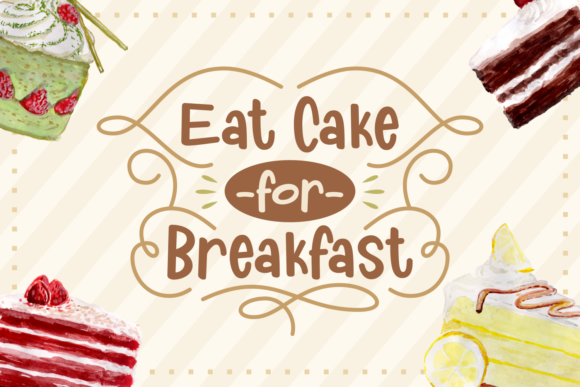
Introduction to Royum Bread Font
Remember the thrill of brainstorming ideas for your next creative project? The excitement of bringing your vision to life is always exhilarating, but sometimes, it’s the little details that make all the difference. For designers, finding the perfect font can be the key to unlocking that special something that elevates your design from good to great.
Enter the Royum Bread Font, a sweet script font that has been making waves in the design community. With its great readability and clean letters, this font is perfect for large designs that need to make a statement. Whether you’re working on a logo, a poster, or a social media graphic, the Royum Bread Font is sure to add a playful feel to your design.
Key Features of Royum Bread Font
- High-quality design resource for creative projects, ideal for illustrations, graphics, and digital art.
- Unique, hand-drawn style with intricate details, perfect for adding a personal touch to designs.
Honest Review: Royum Bread Font
As a designer, I’m always on the lookout for unique and high-quality design resources to elevate my creative projects. Recently, I stumbled upon the Royum Bread Font, and I was excited to give it a try.
Here’s what I love about this font: ✨ It’s incredibly versatile and can be used for a wide range of designs, from invitations to social media graphics. ✨ The font is highly customizable, allowing me to easily adjust the size, color, and style to fit my project’s needs. ✨ The transparent background option is a game-changer for designers who want to add a touch of sophistication to their designs.
- High-quality design resource: The font is well-designed and looks great in print and digital formats.
- Design flexibility: The font can be used for a variety of creative projects, from logos to infographics.
While the Royum Bread Font is a great resource, there are a few limitations to consider: ⚠️ The font may not be suitable for very formal or professional designs, as it has a more playful and casual feel. ⚠️ The font may not be compatible with all operating systems or software.
Overall, I’m impressed with the Royum Bread Font and would recommend it to designers looking for a high-quality, free design resource. Just be aware of the potential limitations and use it accordingly.
Royum Bread Font
Tips for Getting the Most Out of Royum Bread Font
For the best results, use the font with a transparent background to create a seamless design. You can also experiment with different font sizes and combinations to achieve the desired visual effect.
Royum Bread Font is ideal for:
- Food and beverage branding
- Creative marketing campaigns
- Personal projects and portfolios